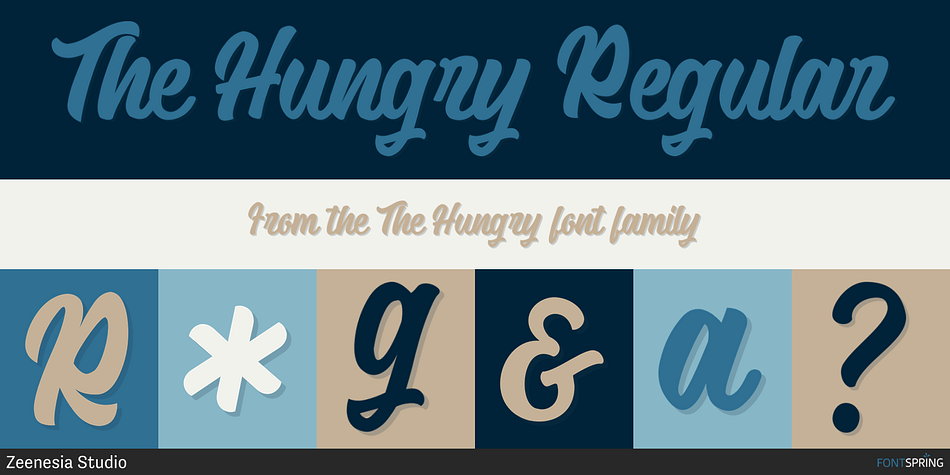
The Hungry Regular
The Hungry is a brush script font family published by Zeenesia Studio.
The Hungry font. It has a bold and smooth style and is perfect for making any design stand out. Best suitable for branding, packaging, print titles, tshirt design, food design, and similar projects. more than 50 stylistic alternates and some natural ligatures to make this font very classy and look so beauty.